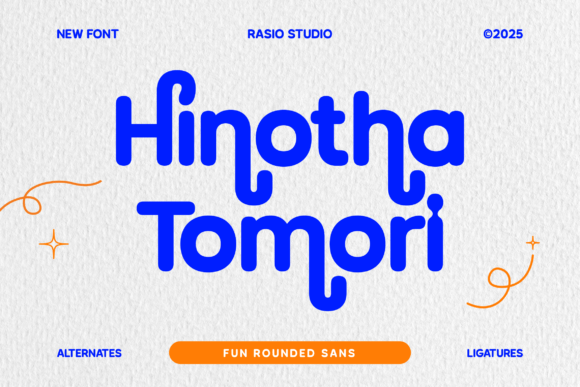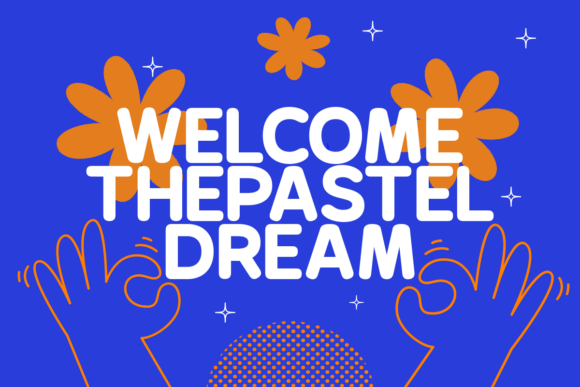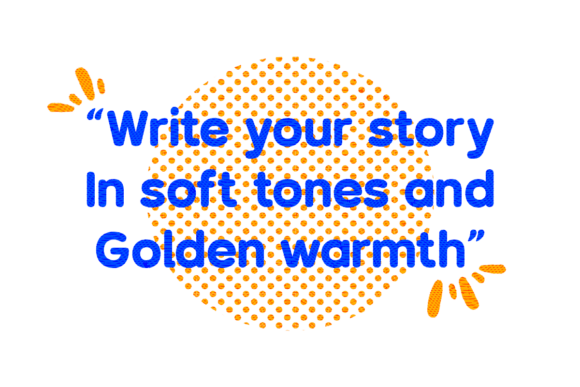
Introduction to Hinotha Tomori Font
Inject a dose of pure joy into your designs with Hinotha Tomori, a β€œFun Rounded Sans” that masters the art of playful movement.
Characterized by its soft, monolinear paths and expressive β€œliquid” ascenders and descenders, this typeface feels alive on the page With a rich library of ligatures and alternates, it allows you to create custom-feeling typography that is perfect for brands that want to feel friendly, creative, and undeniably modern.